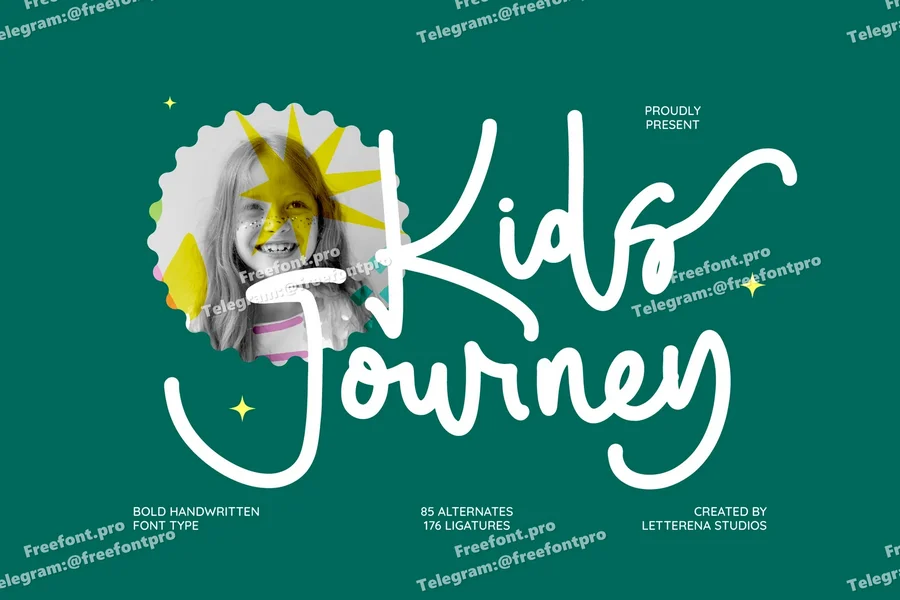
Kids Journey
Hi ladies & gentlemen, this is one of our fonts suitable to complement your digital and printed creative products. This font is perfect for posters, social media posts, branding, personal projects, etc.